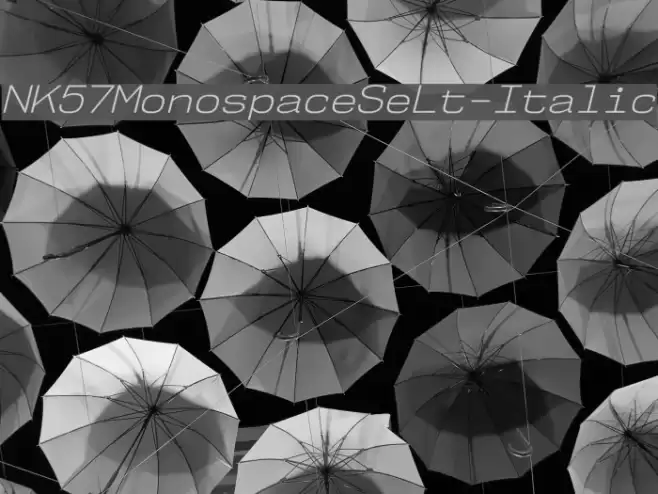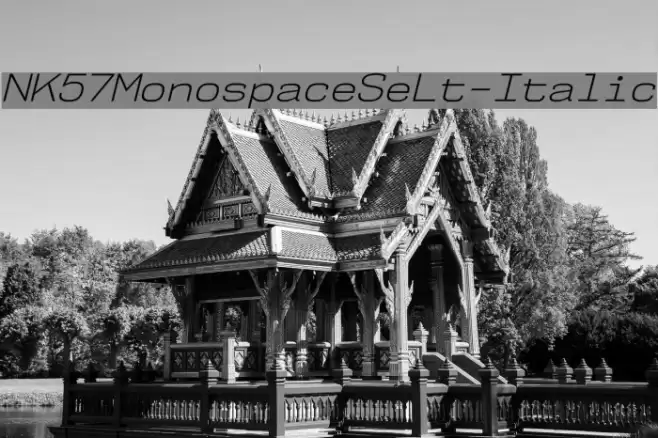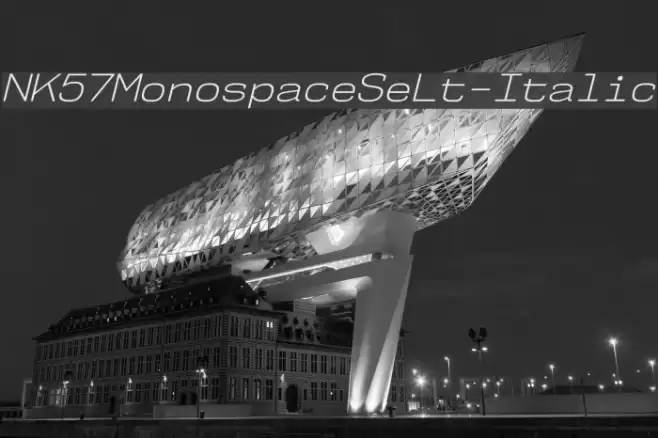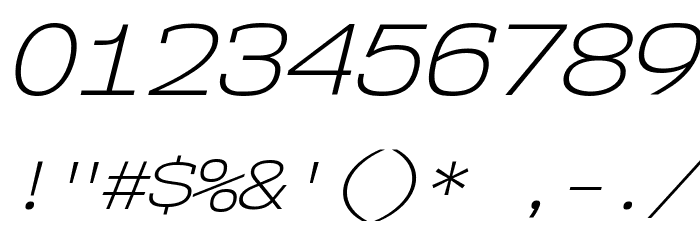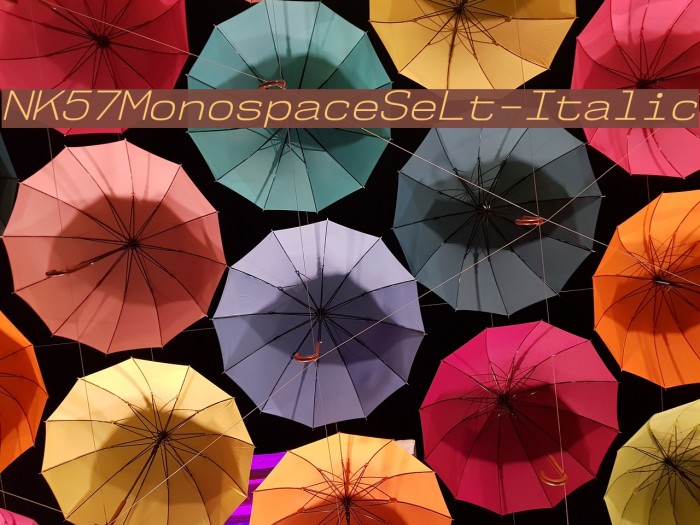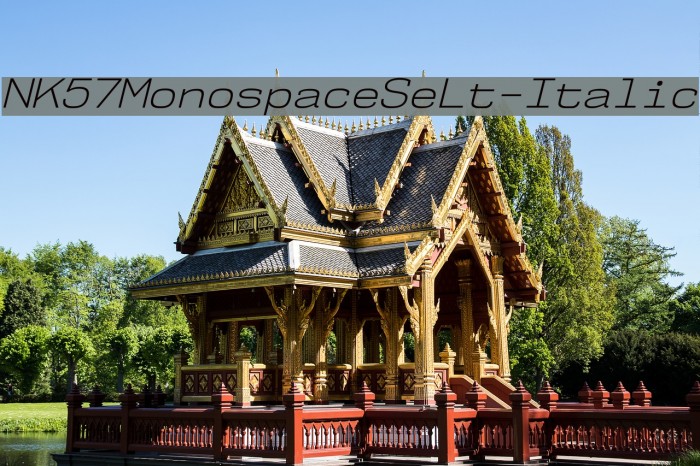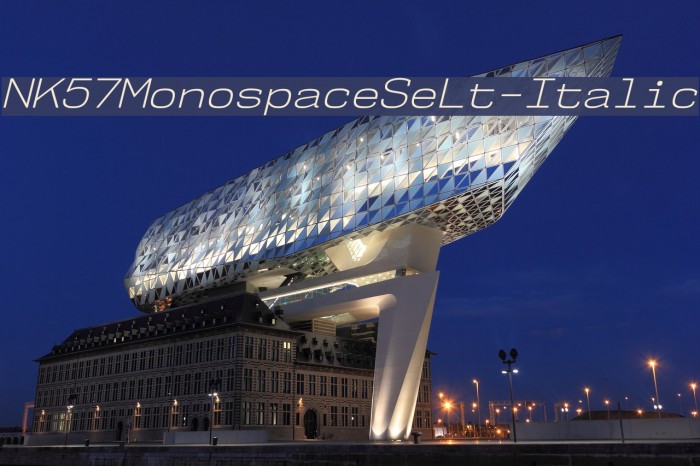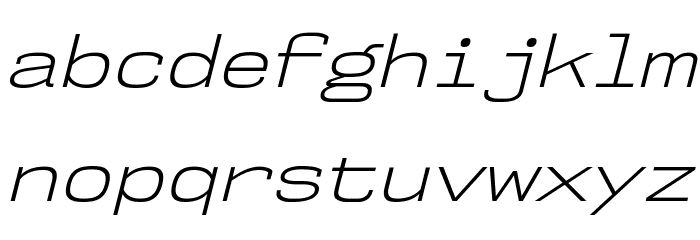
NK57MonospaceSeLt-Italic Font
NK57MonospaceSeLt-Italic Description
This font features a sleek, modern design with a monospaced structure, ensuring each character occupies the same amount of horizontal space. The italic style adds a dynamic and forward-leaning appearance, enhancing its contemporary feel. The letters are crafted with precision, showcasing clean lines and minimalistic curves. The numerals and special characters maintain the same monospaced and italicized characteristics, providing consistency across all elements. This font is ideal for coding environments, technical documentation, and any project requiring a uniform and stylish typeface.
A modern, monospaced italic font with clean lines and uniform spacing from Basic fonts.
- Proposed Projects: Ideal for coding, technical documentation, and modern design projects.
- Use Case: Coding, Technical documentation, Modern design